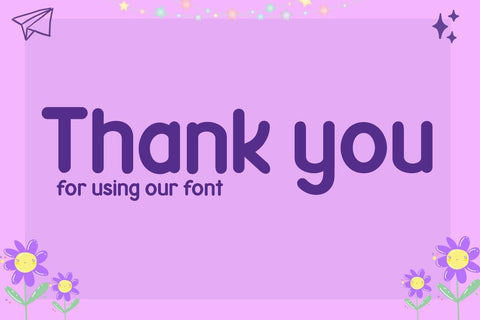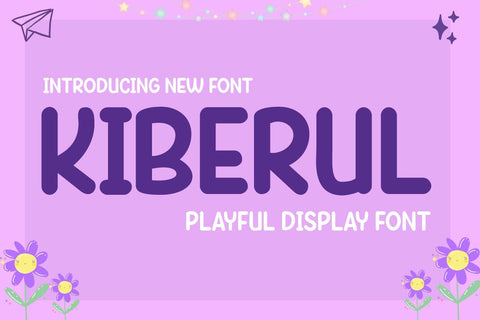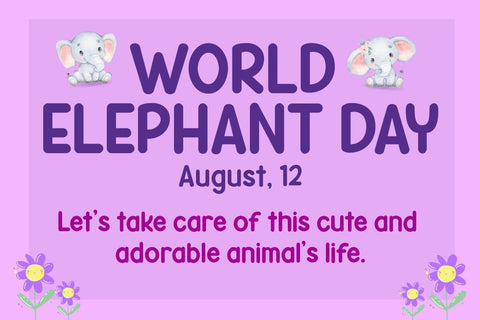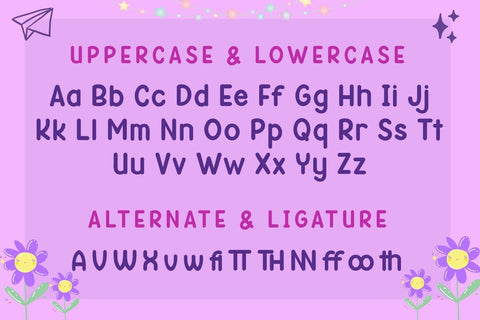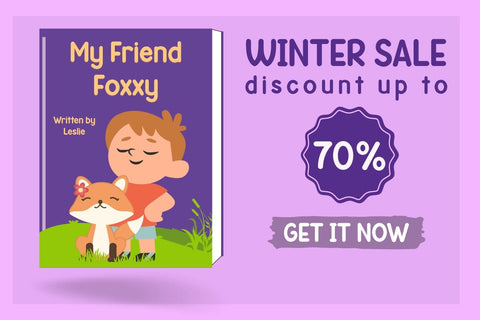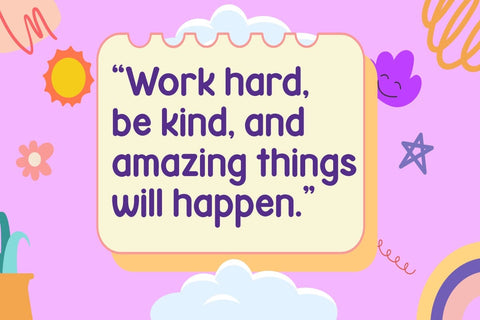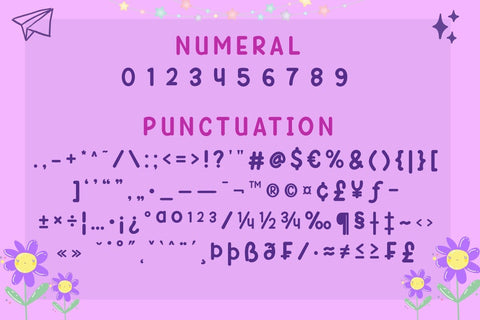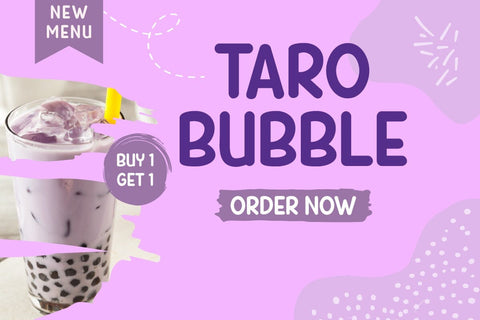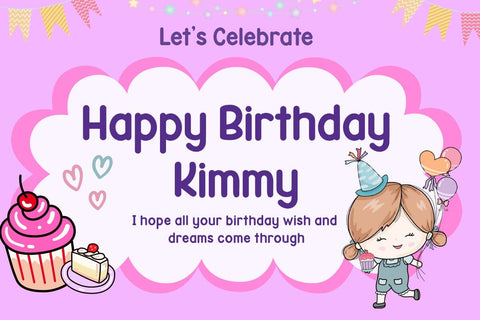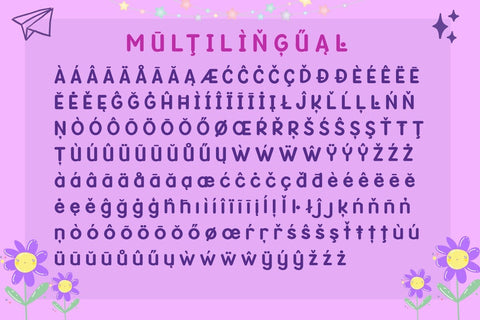
Kiberul Font
Introducing “KIBERUL Font” – Where Playfulness Meets Typography!
Unleash your creativity with KIBERUL Font, a playful display typeface that adds a whimsical touch to your designs.
KIBERUL Font is your go-to choice for projects that demand a sense of fun and lightheartedness. Its unique characters and charming style make it perfect for everything from children’s books to vibrant posters and playful branding.
With KIBERUL Font, your designs will exude a sense of playfulness that captivates your audience instantly. Whether you’re crafting a cheerful invitation or a captivating logo, this font is your ticket to creating designs that stand out.
Elevate your creative projects and let your imagination run wild with KIBERUL Font. Add a touch of joy and humor to your designs, and watch as they come to life with this delightful typeface. Embrace the playful spirit of KIBERUL Font today!